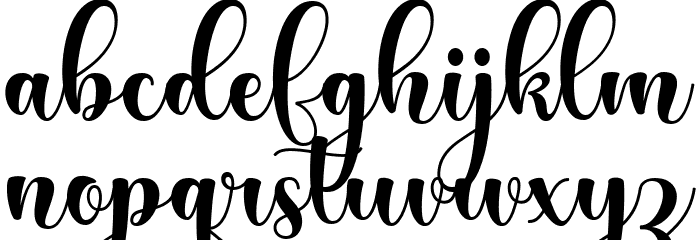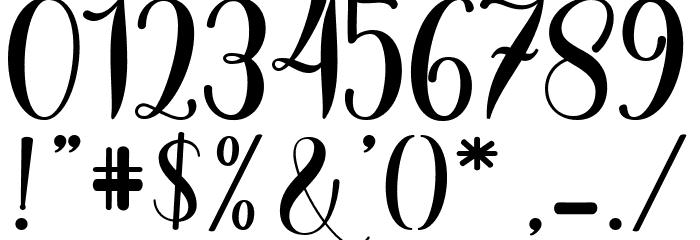
The Purple Love Font
This font features an elegant and flowing script style, characterized by its smooth, cursive letterforms that exude a sense of sophistication and charm. The uppercase letters are distinct with graceful loops and swashes, while the lowercase letters maintain a consistent flow with a slightly more compact form. The numerals are stylish and maintain the script's fluidity, adding a touch of elegance to any numerical display. Special characters are thoughtfully designed to complement the overall aesthetic, making this font versatile for various creative applications. The font's overall appearance is both decorative and legible, making it suitable for a range of design projects.
An elegant and flowing script font with sophisticated cursive letterforms.
- Proposed Projects: Ideal for wedding invitations, greeting cards, branding, and elegant logo designs.